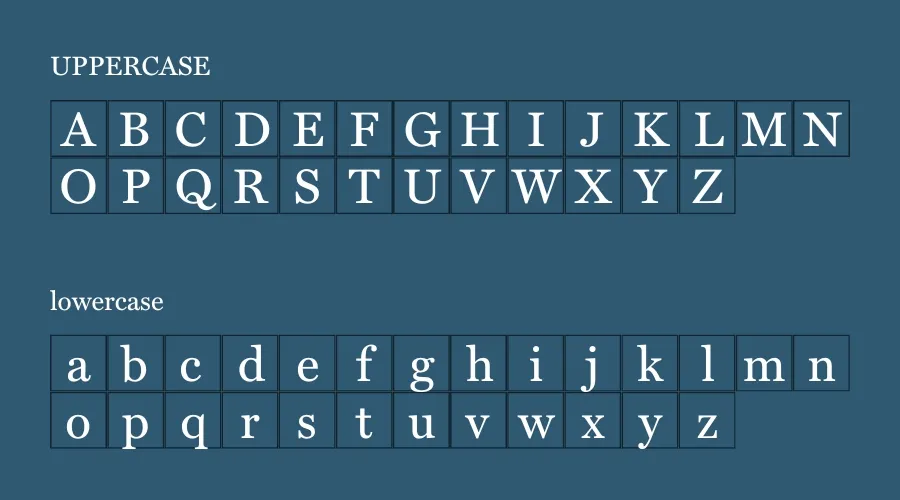
About Miller Text Font
Miller Text is a serif font family designed by Matthew Carter, one of the most acknowledged type designers in the world. With his long experience and expertise in type, Carter created a humanistic and readable font, making it suitable for both text and display settings.
This typeface has six different styles available and published by Carter & Cone. They developed Miller Text with the intention of bringing the capabilities of modern digital typesetting to texts of older books and manuscripts. The font was produced by cutting down the number of contemporary typographical features, and the traditional shapes intended to evoke a more timeless feeling.
The font includes true italic styles and small capitals and they are available in different weightage and styles as well as support for a broad range of languages including English, Dutch, Arabic, Greek, and other types of languages.